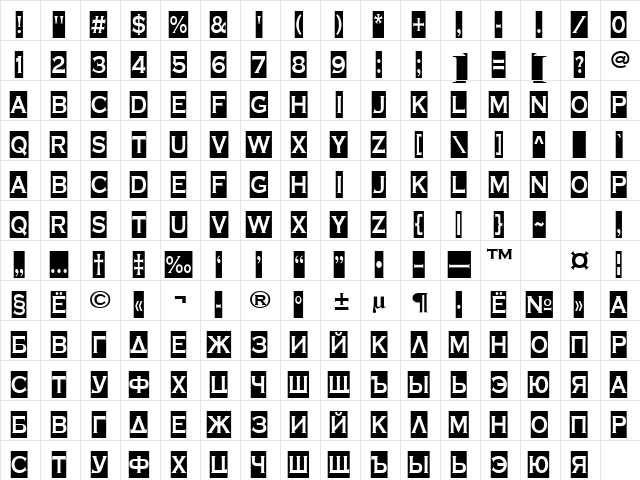
a_CopperGothSl Regular
Design Context for a_CopperGothSl Typeface
a_CopperGothSl is a composed and adaptable typeface that performs quietly and consistently across a wide range of design contexts.
Pro Tip: Pair a_CopperGothSl with a font of contrasting weight or personality to build a more expressive typographic hierarchy.